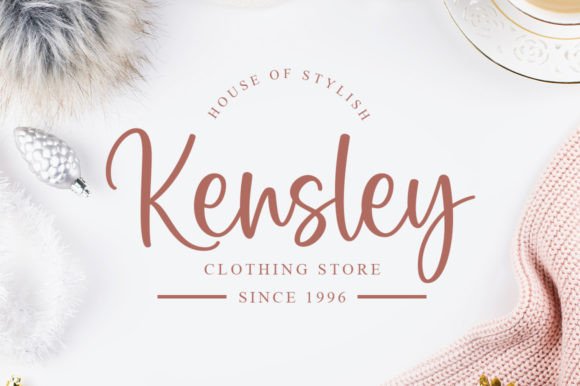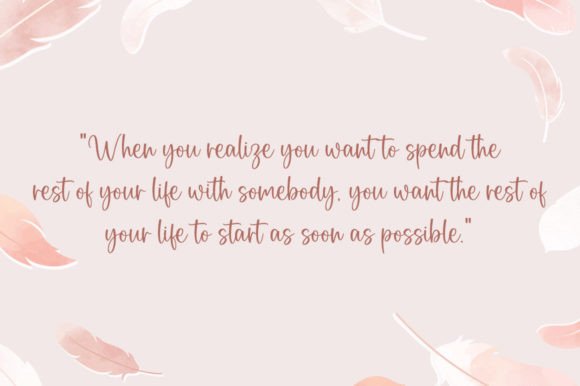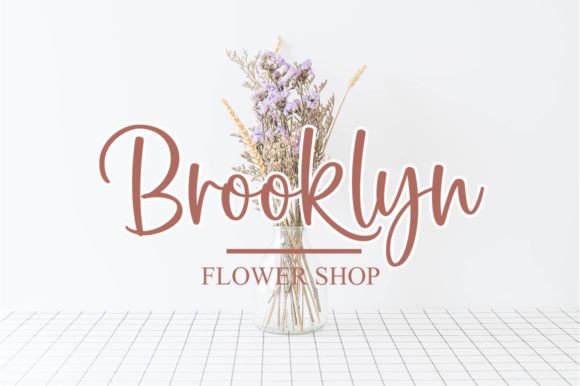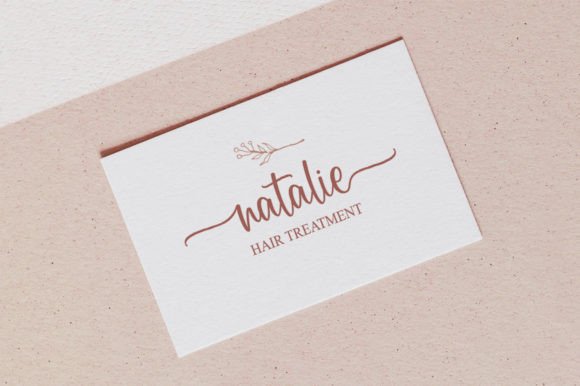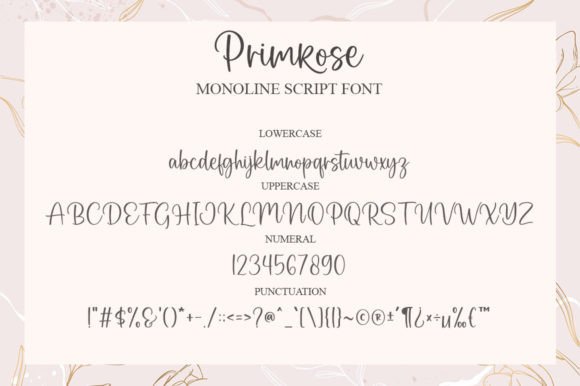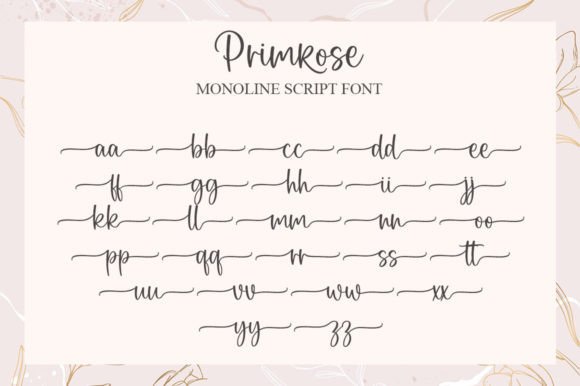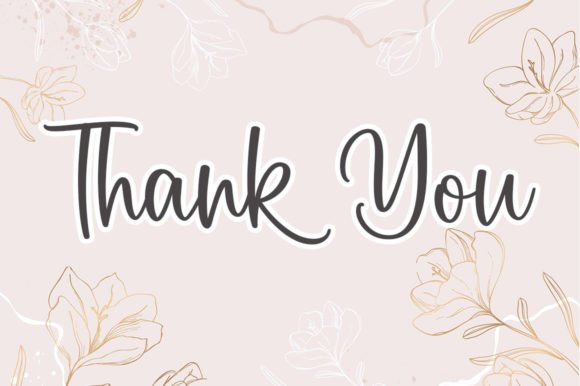
About Primrose Font
“Primrose” is a delicate and refined script font designed to exude sophistication and elegance. With its stylish alternates and ligatures, this font becomes the perfect match for a wide range of creative projects, adding a touch of class to your designs.
The delicate and refined qualities of Primrose make it ideal for applications where an elegant and sophisticated aesthetic is desired. Whether you’re working on branding, invitations, quotes, or any project that requires a touch of refinement, this font is crafted to elevate the visual appeal of your text.
The inclusion of stylish alternates and ligatures in Primrose enhances its versatility and allows you to create unique and customized designs. As a PUA-encoded font, accessing all glyphs and swashes is made easy, providing you with the creative freedom to experiment with different characters and variations.
Imagine using Primrose for upscale invitations, where its delicate script enhances the overall elegance of the event. Picture it in branding materials, creating a visual identity that exudes sophistication. Whether applied to digital graphics or print designs, Primrose is designed to be a font that adds a touch of luxury to your creative endeavors.
In summary, Primrose is more than just a font; it’s a delicate and refined script typeface that brings sophistication and elegance to your designs. Let it be the choice that elevates your projects, making them stand out with a timeless and refined charm.